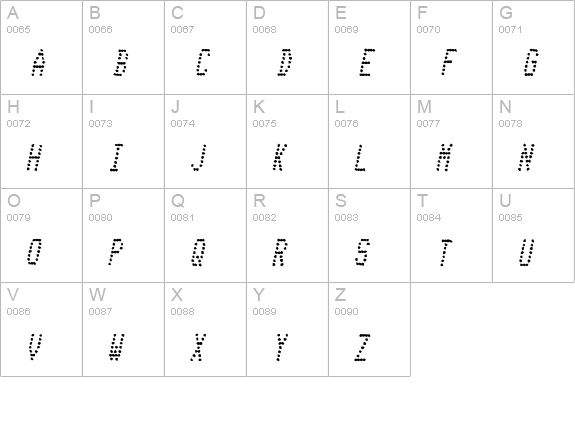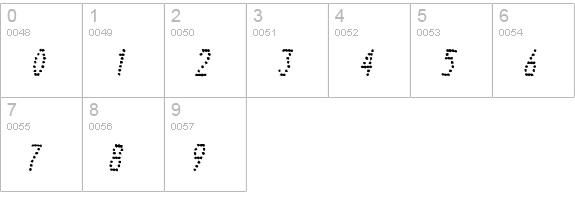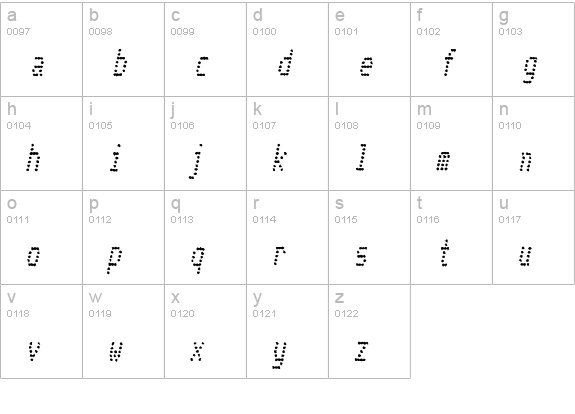
Telidon Ink Cd Italic Font Details
Telidon Ink Cd Italic is a distinctive, italic variant in the Telidon typeface family \xE2\x80\x94 well suited to design and typography projects.
Telidon Ink Cd Italic font is a stunning and unique typeface that exudes creativity and elegance. Its bold and slanted design gives it a modern and sophisticated look, making it perfect for a variety of design projects. The sharp, edgy curves of the letters add a dynamic and artistic touch to any text. The italic style adds a sense of movement and fluidity, making it ideal for conveying a sense of energy and forward motion. What's even better is that Telidon Ink Cd Italic font is available for free download at FontsMarket.com. This means that you can easily access this beautiful font and use it in your projects without having to spend a penny. Whether you're working on a logo, poster, website, or any other design, Telidon Ink Cd Italic font will surely make your text stand out and leave a lasting impression. Don't miss out on the opportunity to enhance your designs with this exceptional font. Download Telidon Ink Cd Italic today and let your creativity shine!